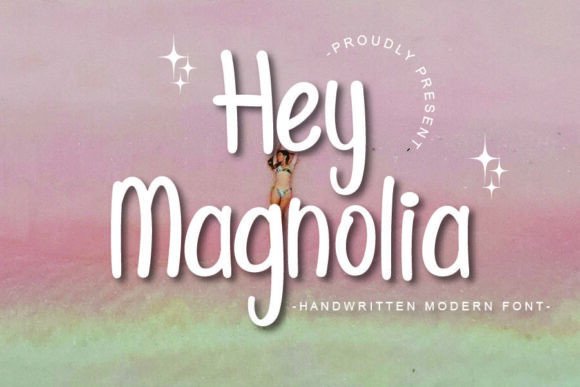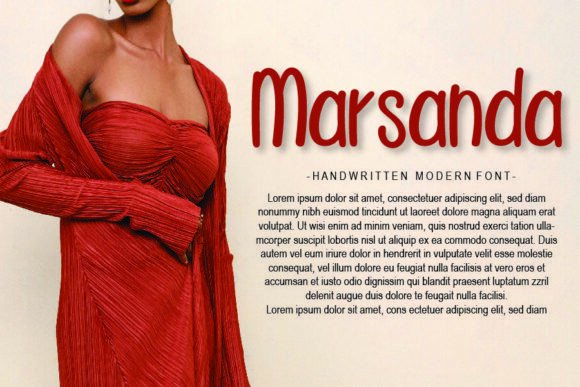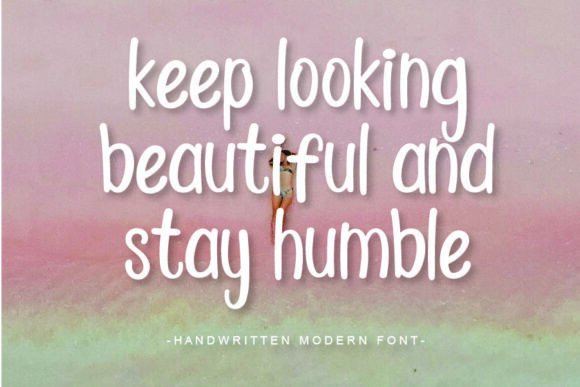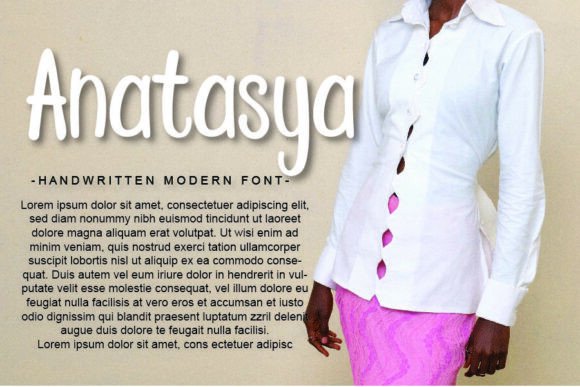
Hey Magnolia Font
About the Hey Magnolia Font
Make a bold statement with Hey Magnolia Font, a powerful and memorable font. Introducing Hey Magnolia – a charming and welcoming font that is certain to bring an element of friendliness to your compositions. Let this endearing typeface infuse your creative projects with a fresh atmosphere, effortlessly enhancing its aesthetic appeal. Utilize Hey Magnolia and watch your work transform and evolve, taking on a new dimension of coolness and visual delight.
Hey Magnolia thrives in display settings, ideal for headlines, short paragraphs in brochures, and branding applications where a friendly, approachable aesthetic is desired. Its charm works well on packaging for artisanal products or invitations for casual events. However, its slightly informal character makes it less suitable for body text, long-form content, or UI elements requiring high readability.
Pairing Hey Magnolia effectively requires considering its inherent warmth. A clean sans-serif like Lato or Open Sans provides a modern contrast and enhances readability when used for supporting text. For a more playful approach, consider pairing it with a script font like Great Vibes, but use it sparingly to avoid overwhelming the design.
The font’s core personality is undeniably friendly and approachable, conveying a sense of casual elegance. Its slightly rounded forms and open counters create a welcoming atmosphere, perfect for brands focusing on community, handcrafted goods, or a vintage aesthetic.
Hey Magnolia Font Example